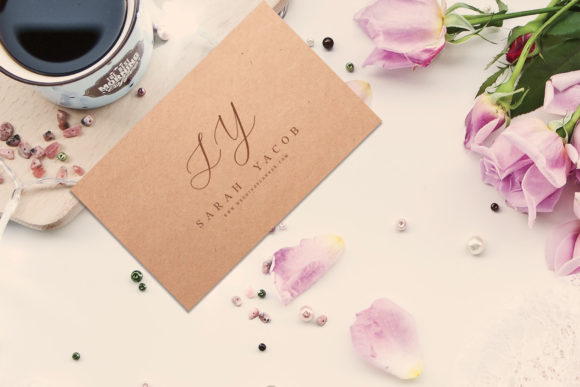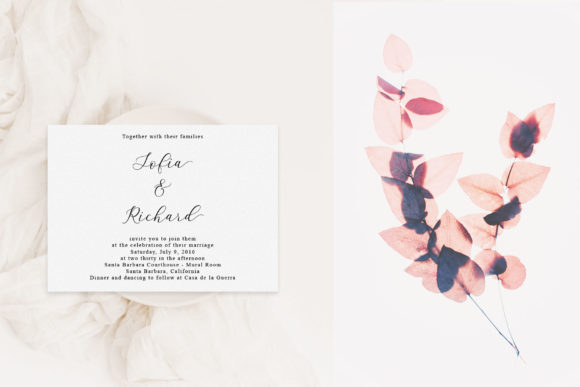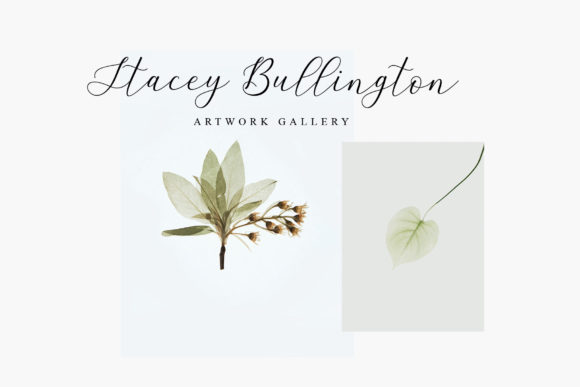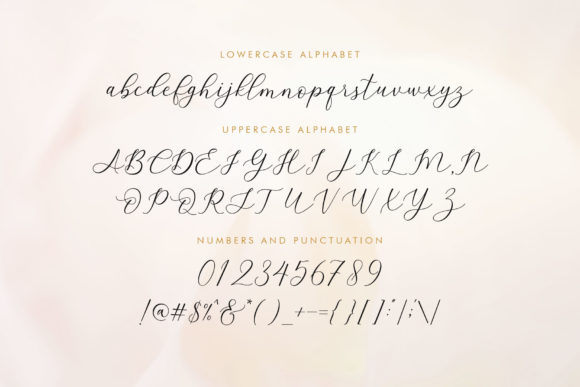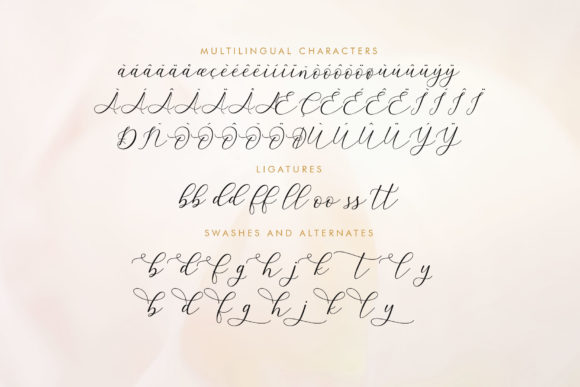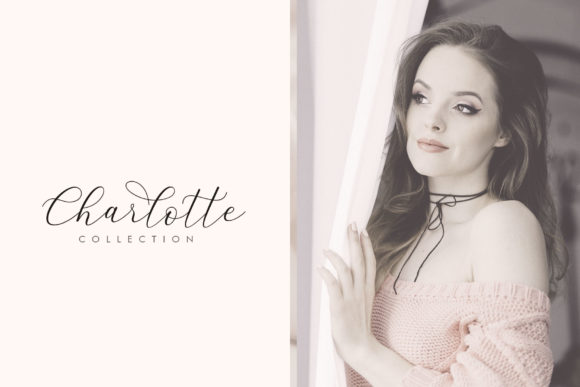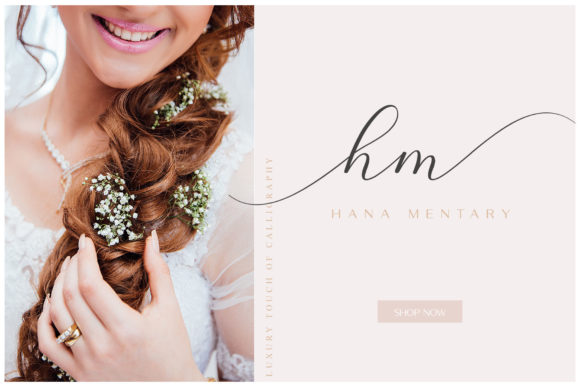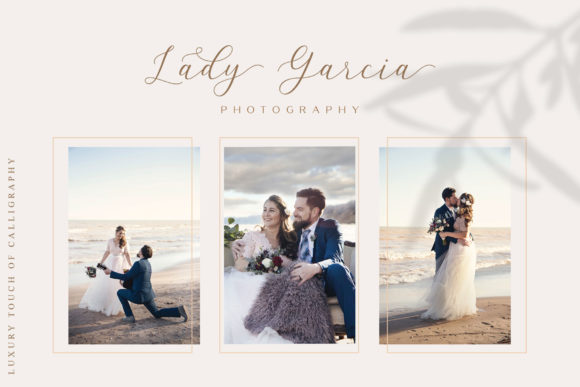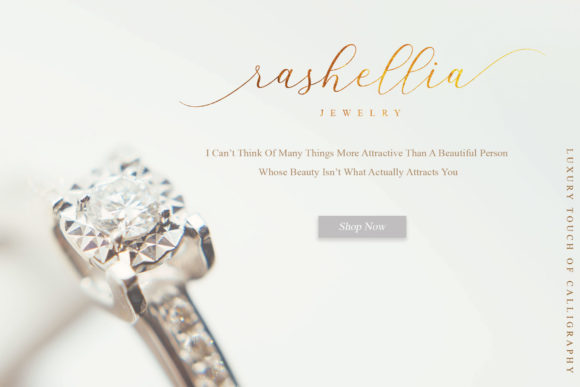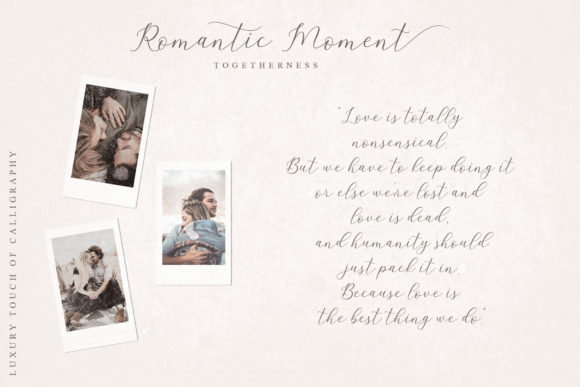
HomeScript FontsAmstella Font Script Fonts Amstella Font FacebookXPinterestWhatsApp Amstella Font Poster 2 Amstella Font Poster 3 Amstella Font Poster 4 Amstella Font Poster 5 Amstella Font Poster 6 Amstella Font Poster 7 Amstella Font Poster 8 Amstella Font Poster 9 Amstella Font Poster 10 Amstella Font Poster 11 Amstella Font Poster 12 Amstella Font Poster 13 Amstella Font Poster 14 Amstella Font Poster 15 Amstella Font Poster 16 About Amstella Font Amstella is a stunning script font that features beautiful swashes. Get inspired by its modern elegance. DOWNLOAD NOW People also explored Anllotoh Font Velonyka Font FT Giorgio Browning Font Incredible Chayla Lovely Font Wackie! Font Argenthus Script Font Genoa Flora Font 287 0 TagsAmstella Font Previous articleThe Army of God FontNext articleWeisshorn Font LEAVE A REPLY Cancel reply Comment: Please enter your comment! Name:* Please enter your name here Email:* You have entered an incorrect email address! Please enter your email address here Website: Save my name, email, and website in this browser for the next time I comment. Personal Use Free Simple Personal Use Free Read more about this font BD Geminis Personal Use Free Read more about this font Luxima Personal Use Free Read more about this font Shelly Personal Use Free Read more about this font BLOG Using Fonts in Digital Marketing: Tips to Strengthen Your Brand Identity In the realm of digital marketing, every visual element plays a crucial role in shaping a brand's identity, and fonts are no exception. The... Best Fonts for T-Shirt Design – Top 2025 Picks Top 10 Handwritten Fonts That Elevate Your Designs Top 7 Google Fonts Alternatives for Faster and Privacy-Friendly Web Design (2025)